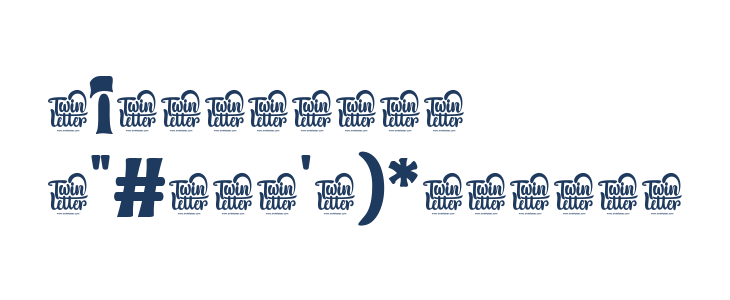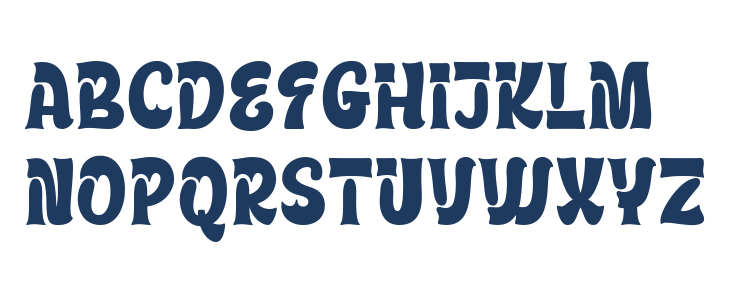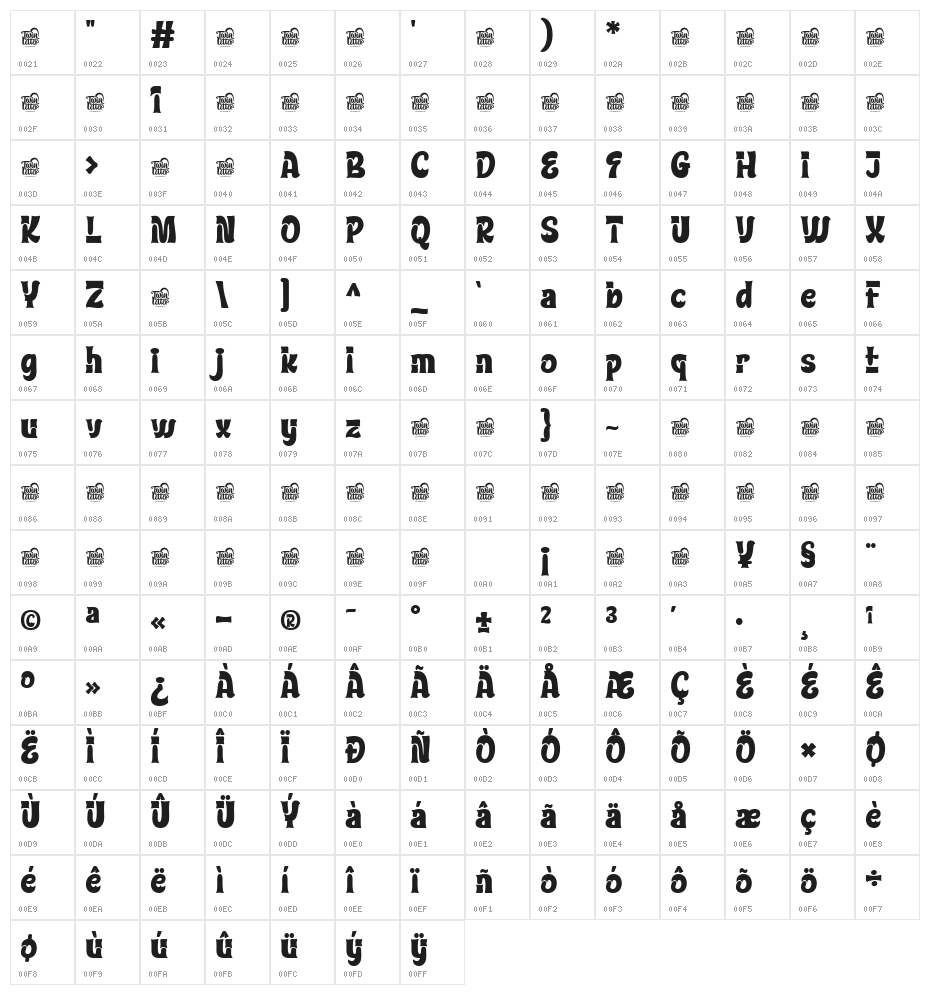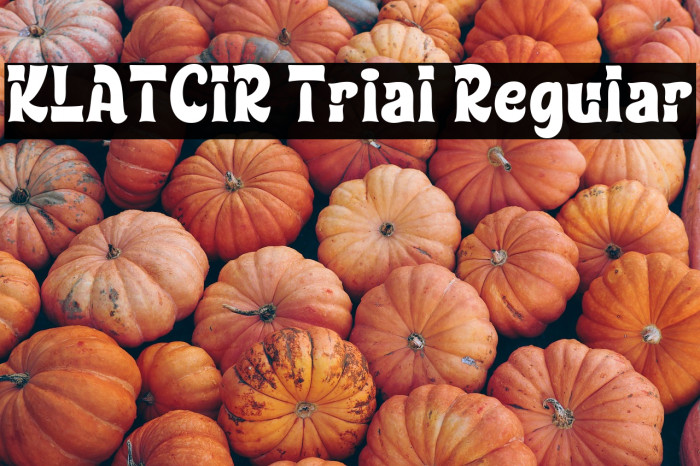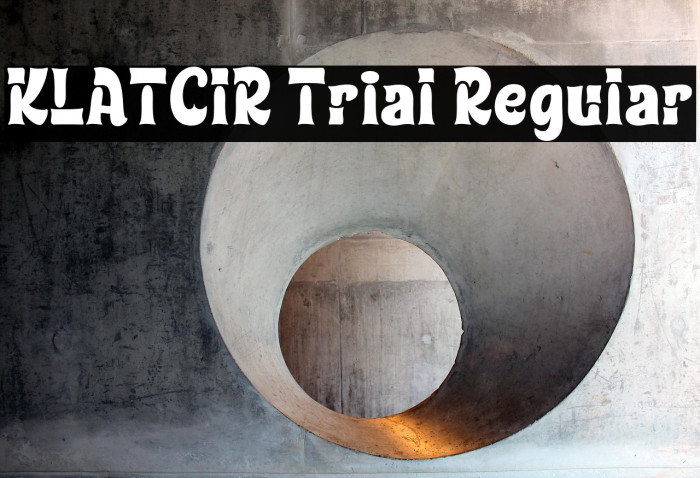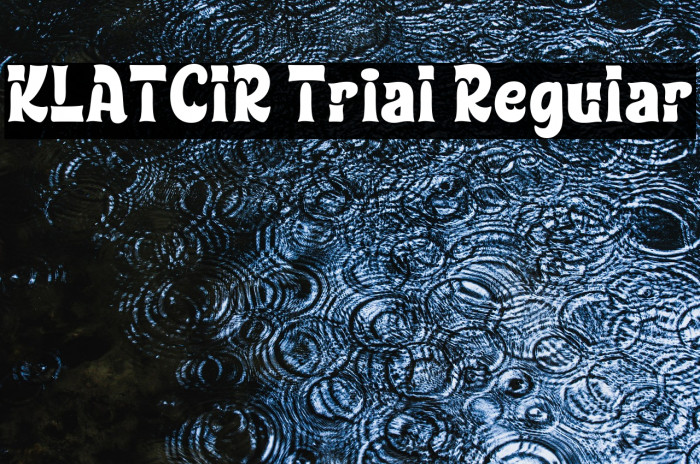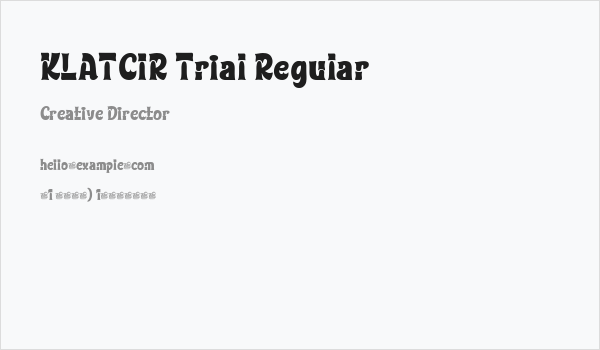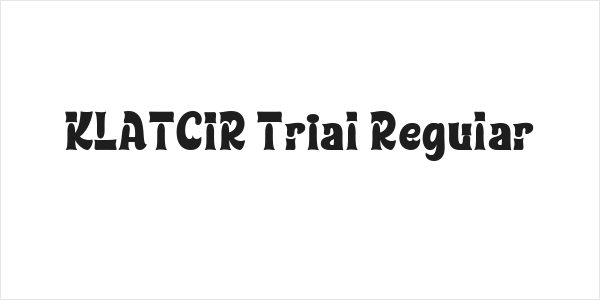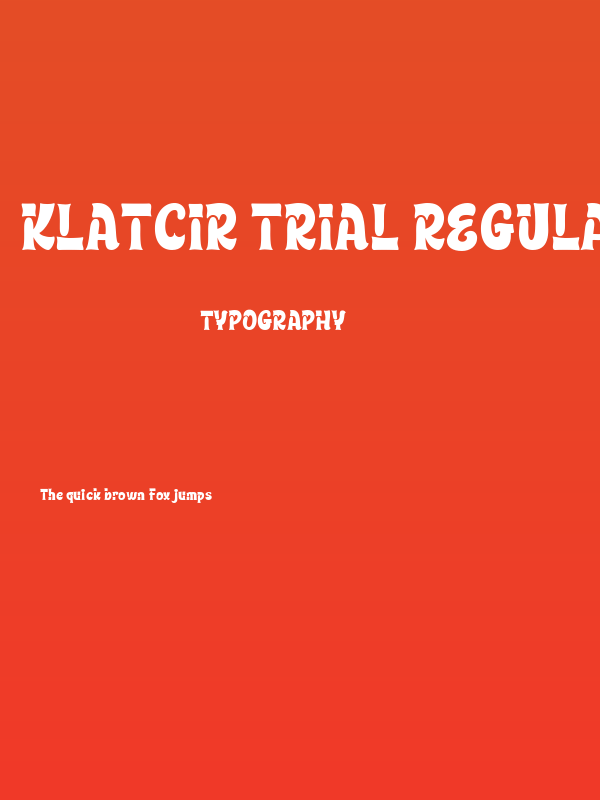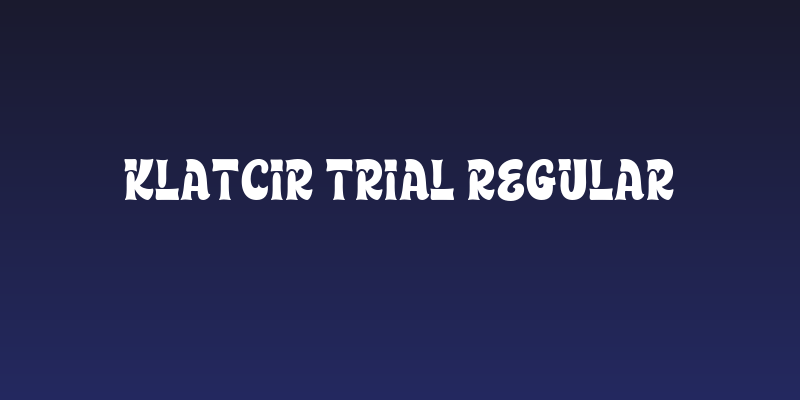
KLATCIR Trial Regular Font
KLATCIR Trial Regular Description
A bold, playful display typeface with heavy, irregular strokes and exaggerated curves. The letterforms feature unique, almost whimsical shapes with a hand-crafted feel, and the terminals are squared off, giving a chunky, impactful appearance.
| Overall Style | Playful, Decorative, Modern |
| Proposed Projects | Posters, event flyers, childrenΓ’β¬β’s books, branding for creative businesses, packaging, social media graphics. |